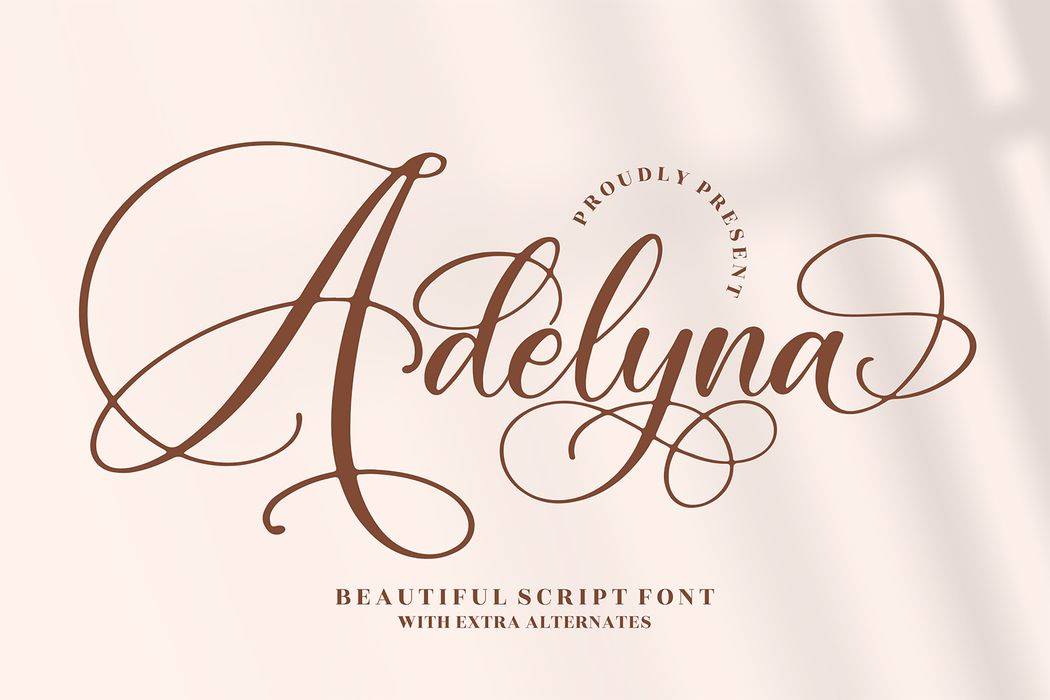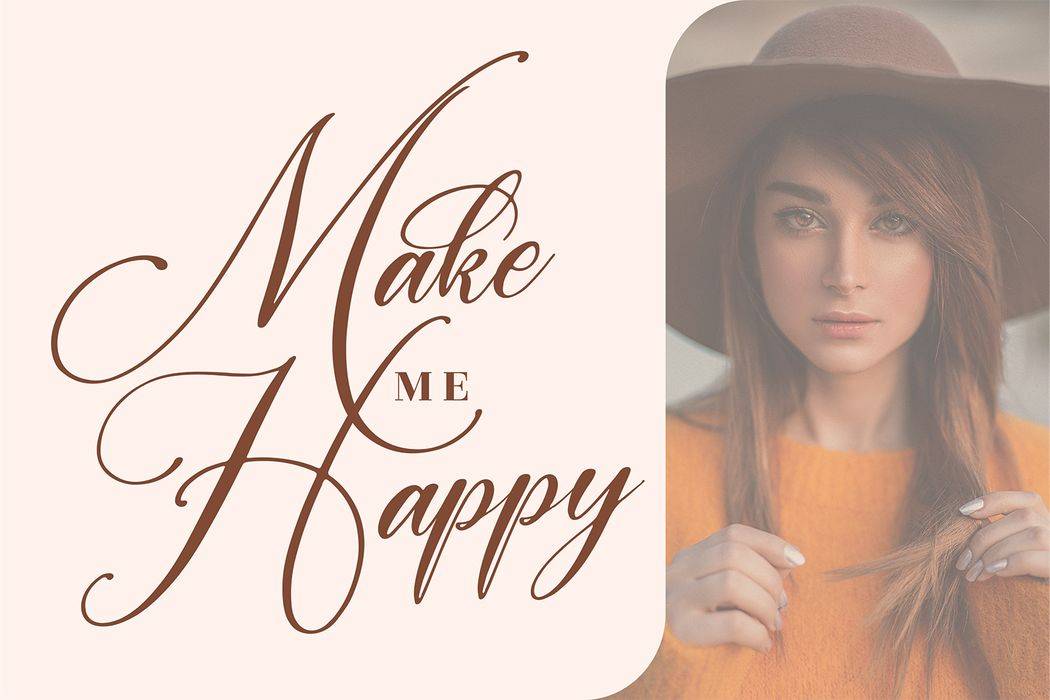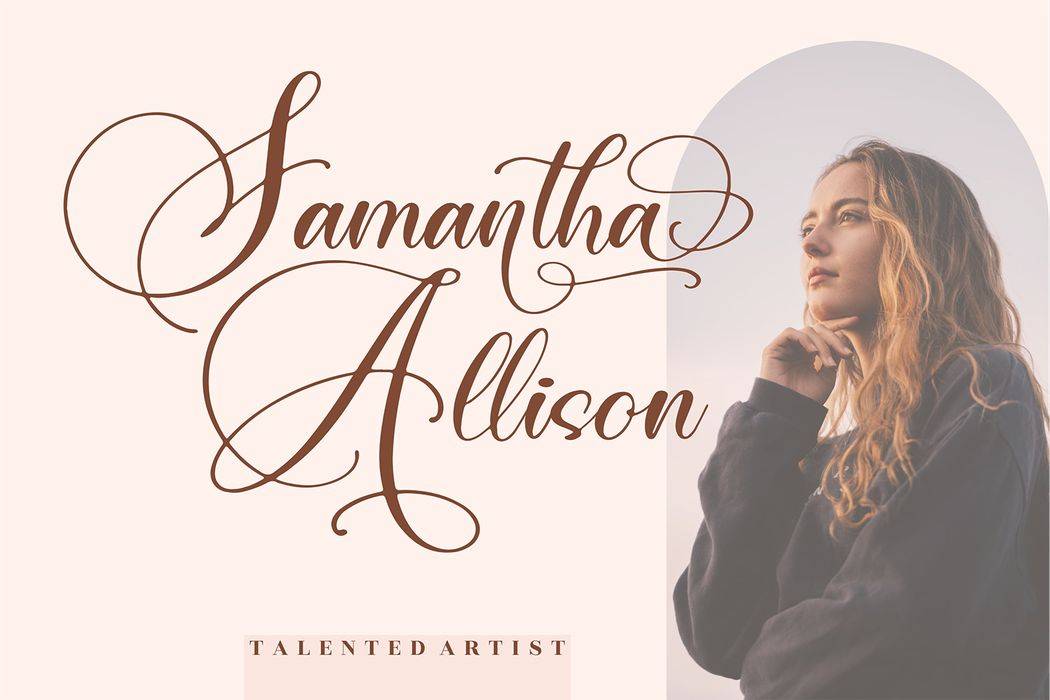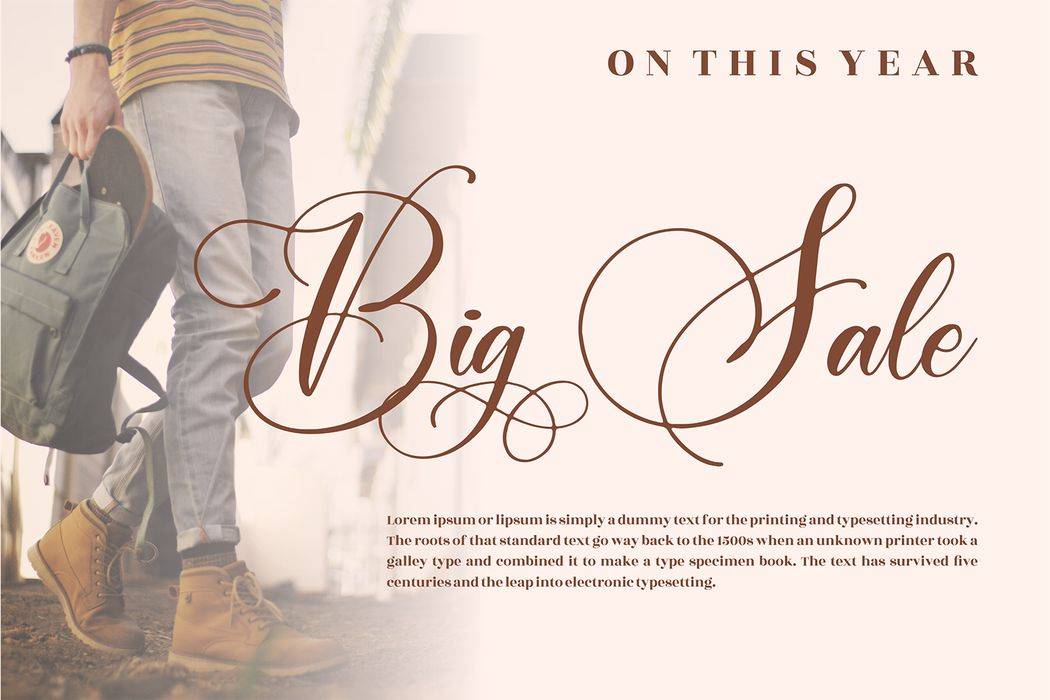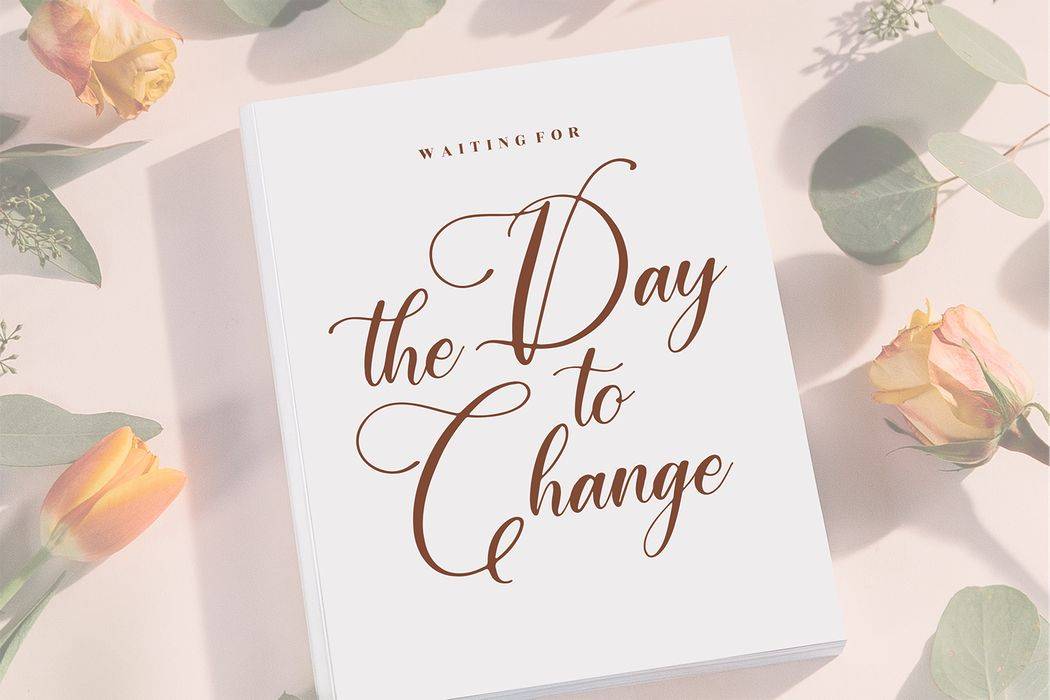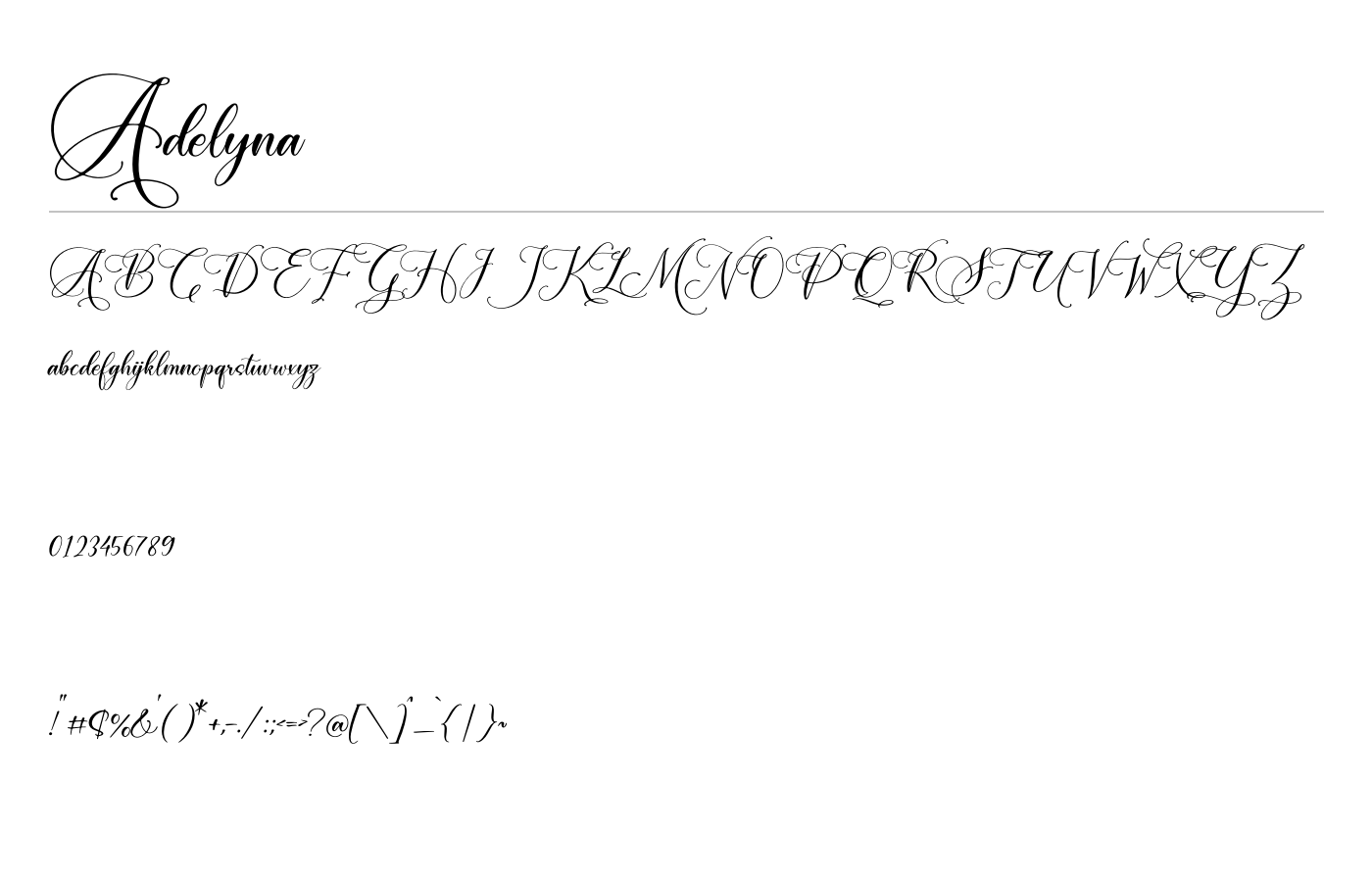
Adelyna is an elegant script font characterized by delicate, flowing strokes and elaborate swashes that lend it a refined, luxurious feel. Its slender, high-contrast letterforms with graceful flourishes make it ideal for sophisticated branding, wedding invitations, and upscale editorial use where a touch of classic beauty and femininity is desired. This font works best in display settings, adding a stylish and ornamental accent to headlines and logos.
Adelyna Font
About Adelyna Font